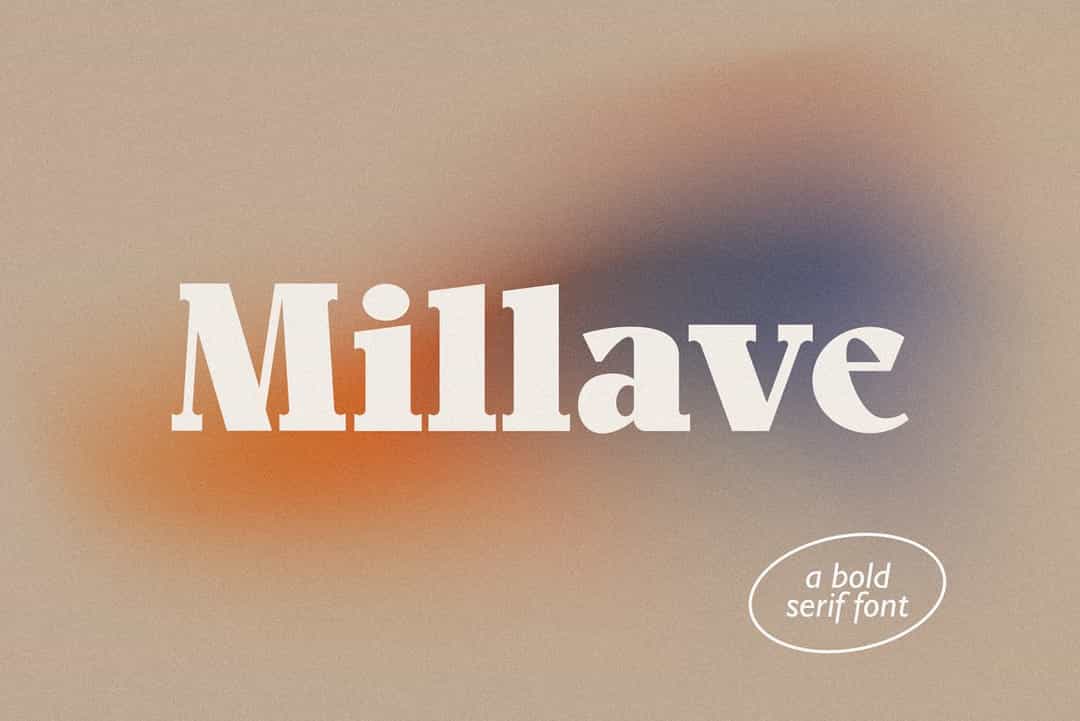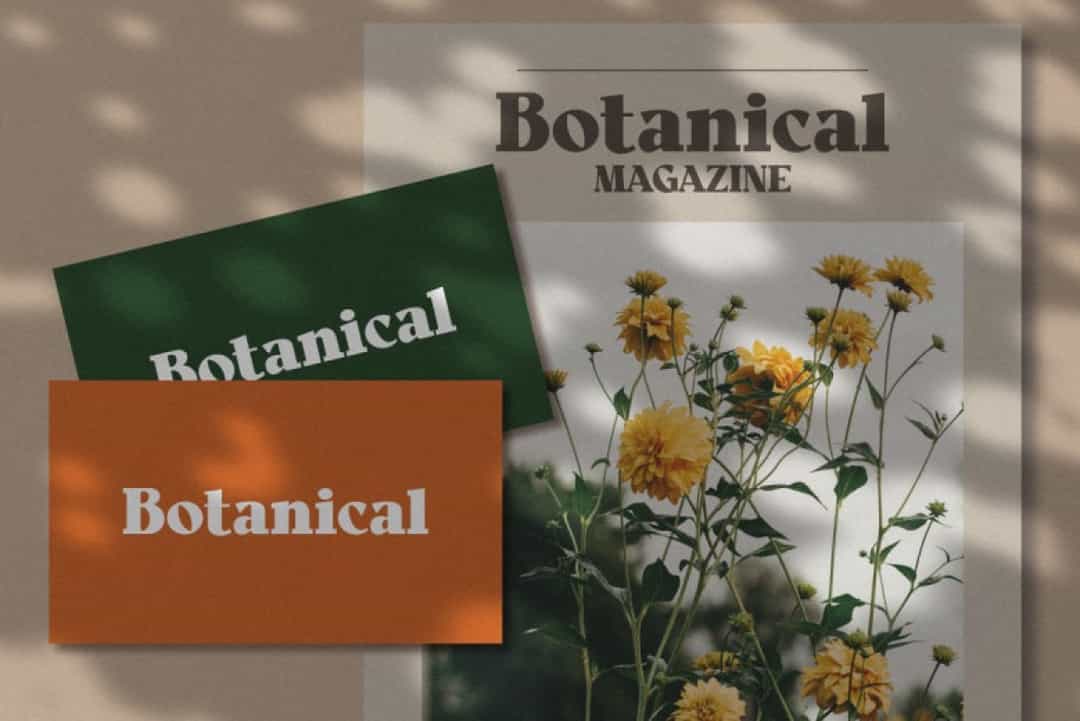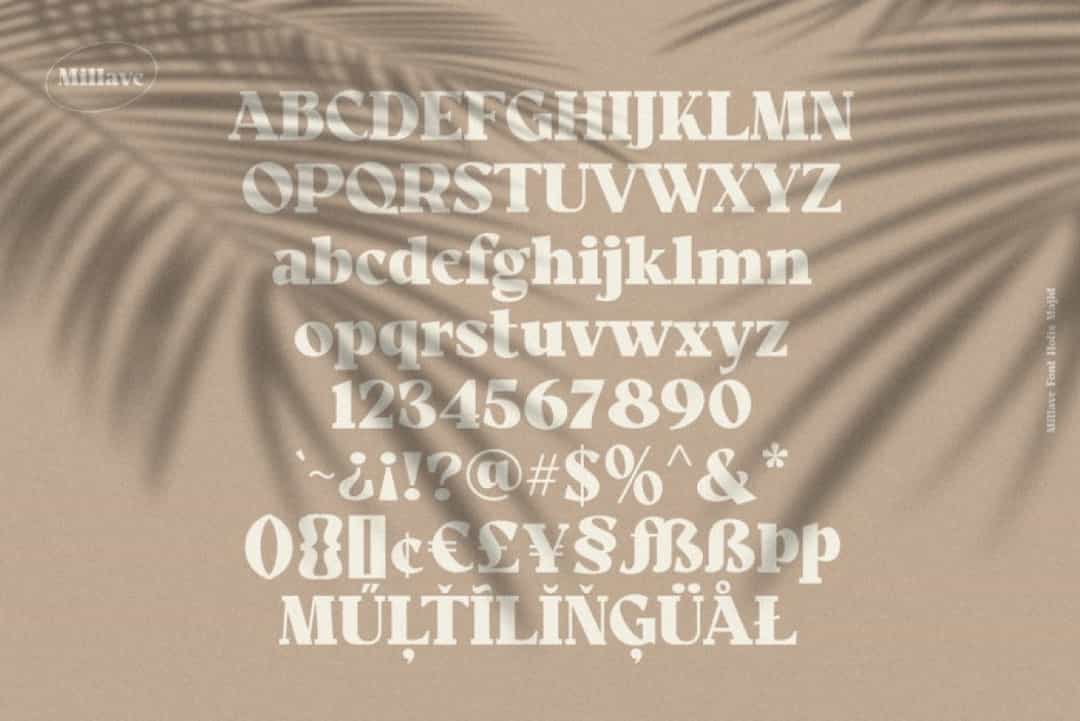
Millave is an elegant yet cool serif typeface featuring large characters. Specifically tailored for business sectors such as apparel manufacturing, garment production, poster design and headline writing – Millave font is an elegant font designed specifically for these industries.